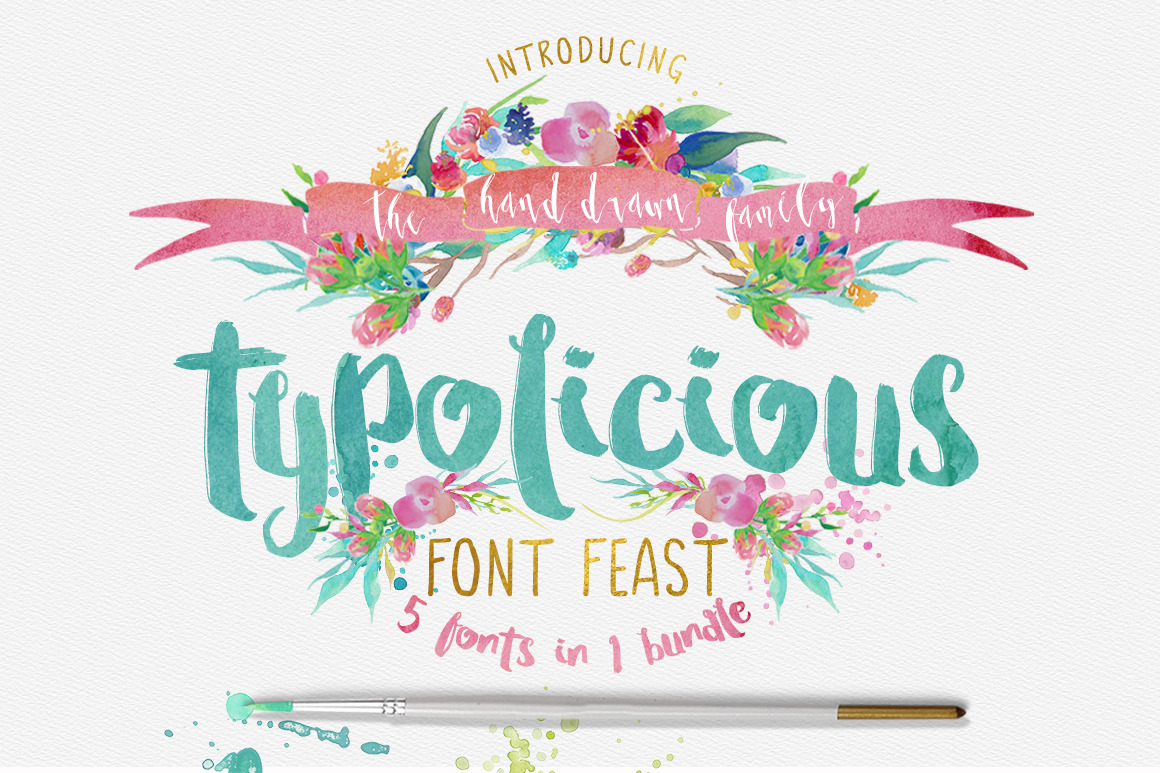
Typolicious Font Bundle Third Storey
Please welcome the new Typolicious Font Feast from Creativeqube Design - Third Storey
This is a bundle of 5 unique hand drawn fonts that work together to create awesome typography.
Includes;
Third Storey Standard Third Storey Bold Third Storey Lowercase Third Storey Brush Third Storey Script Third Storey Marker
All fonts include numbers and symbols.